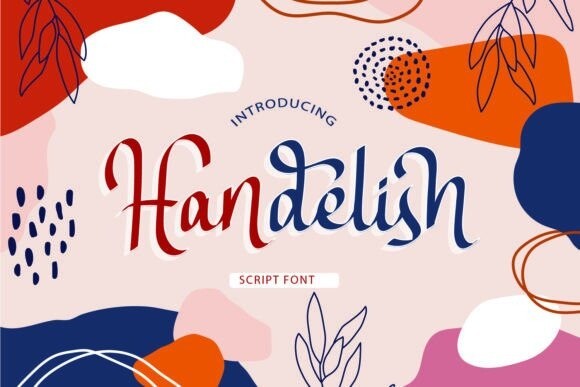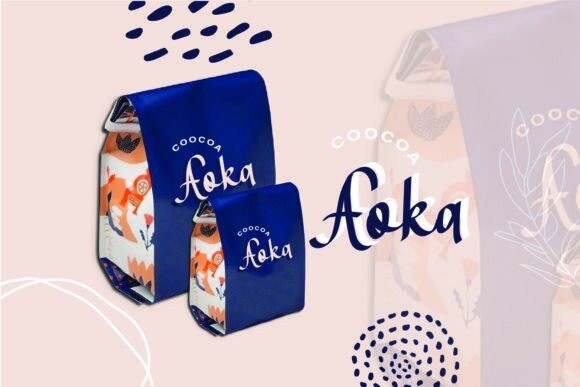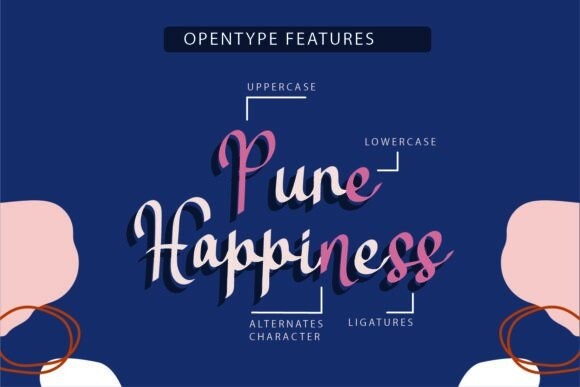
Handelish Font
Handelish is a modern and cool handwritten script font. Fall in love with its incredibly distinct and timeless style and use it to create spectacular designs!